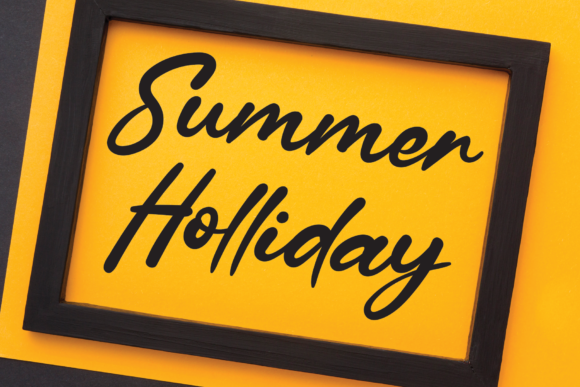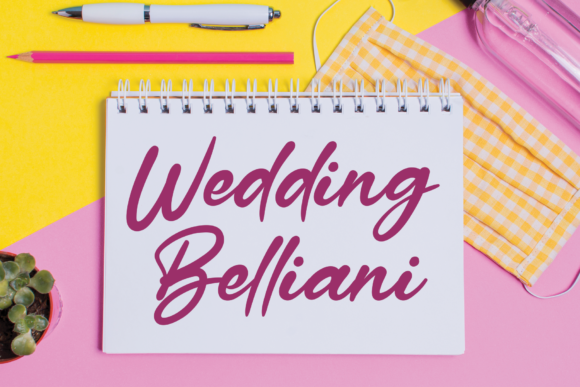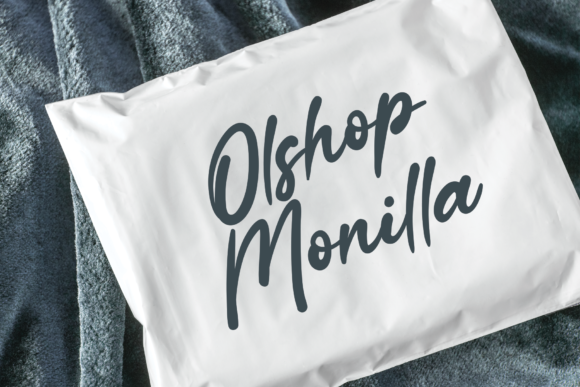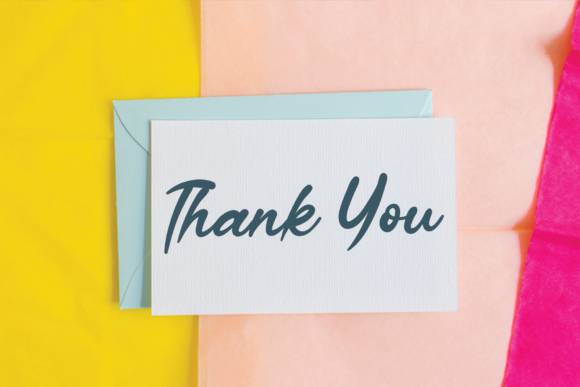
Introduction to Homelove Font
As designers, we’ve all been there – staring at a blank canvas, trying to bring a creative project to life. The right font can be the missing piece that sets our design apart, and for those seeking a touch of whimsy and romance, the Homelove Font is sure to delight. This sweet and cursive handwritten font is more than just a pretty face – it’s a valuable design resource that can add a joyful and personal touch to any project.
With its high quality and versatile design, the Homelove Font is a must-have for designers looking to elevate their creative work. Whether you’re working on a wedding invitation, a children’s book, or a social media campaign, this font is sure to bring a smile to your face and a touch of magic to your design.
Key Features of Homelove Font
• High-quality design resource ideal for creative projects, offering a unique and stylish aesthetic.
• Perfect for use in logos, branding materials, and other creative projects where a touch of elegance is desired.
Honest Review: Homelove Font
I recently stumbled upon the Homelove Font, a beautiful and high-quality design resource that’s perfect for any creative project. The moment I downloaded it, I was impressed by its clean and elegant design, making it ideal for logos, branding, and web design projects.
However, there are a few limitations: ⚠️ The font is not as extensive as some other popular font collections. It’s mainly suitable for body text and headings, and may not be ideal for titles or emphasis text. Additionally, the font may not be compatible with all operating systems or software.
Overall, I’m impressed with the Homelove Font, and I think it’s a great addition to any designer’s toolkit. While it may have some limitations, its high quality and versatility make it a valuable resource for any creative project.
• Perfect for logos, branding, and web design projects
• Highly customizable
Tips for Getting the Most Out of Homelove Font
For optimal results, use the Homelove Font in conjunction with a high-quality image or design element. Experiment with different font sizes, colors, and styles to find the perfect combination for your project. You can also use the font in combination with other design resources, such as graphics and textures.
Common Use Cases for Homelove Font
The Homelove Font is suitable for a wide range of design projects, including business cards, brochures, and social media graphics. It’s also a great choice for creating a consistent brand identity across multiple platforms. With its free download and transparent background, the Homelove Font is a valuable design resource for any creative project.